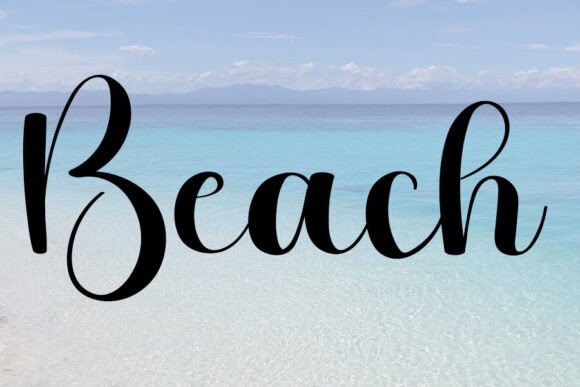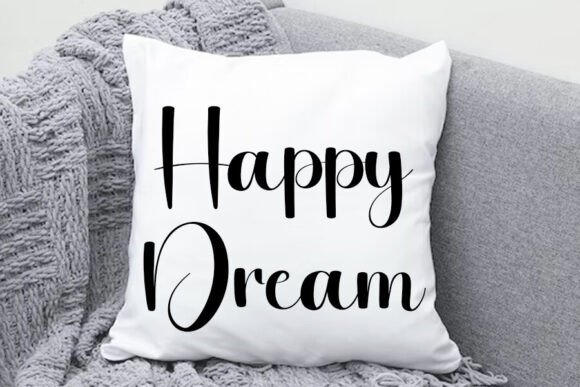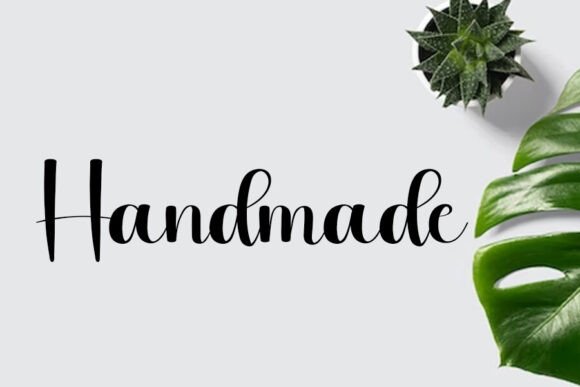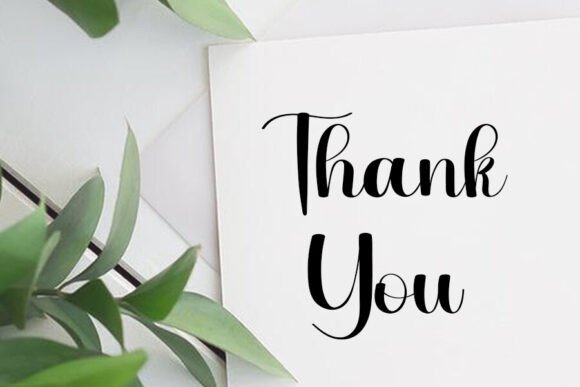
Introducing Diary Font: Elevate Your Design Standards
In the world of design, fonts play a crucial role in conveying messages, expressing emotions, and creating brand identities. Among the numerous fonts available, Diary Font stands out as a uniquely captivating and contemporary typeface that can elevate your design standards. In this article, we’ll explore the features, applications, and benefits of Diary Font, making it an essential tool for designers, entrepreneurs, and crafters.
What is Diary Font?
Diary Font is a modern, elegant, and versatile typeface designed to cater to a wide range of design applications. Its simplicity, combined with its distinctive flair, characterizes Diary Font, making it an excellent choice for various projects. Whether you’re a designer, entrepreneur, or crafter, Diary Font can help you create stunning visual content that captures attention and communicates your message effectively.
Applications of Diary Font
Diary Font’s versatility makes it suitable for numerous design applications, including:
- YouTube Banners: Create eye-catching banners that showcase your brand’s personality and style.
- Logo Mockups: Give your logo a professional touch with Diary Font’s elegant and modern aesthetic.
- Wedding Invitations: Add a romantic air to your wedding invitations and make them truly unforgettable.
- ID Cards: Convey professionalism and authority with Diary Font’s clean and crisp design.
- Flyers: Inject creativity and energy into your flyers, making them stand out from the crowd.
- Craft Projects: Add a touch of elegance and sophistication to your craft projects, such as handmade cards, scrapbooking, and more.
Benefits of Using Diary Font
Diary Font offers several benefits that make it an attractive choice for designers and crafters:
- Unique and Captivating: Diary Font’s distinctive style sets it apart from other fonts, making your designs more engaging and memorable.
- Contemporary and Modern: Stay ahead of the design curve with Diary Font’s modern and fresh aesthetic.
- Versatile: Use Diary Font across various design applications, from digital to print.
- Elegant and Sophisticated: Add a touch of elegance and sophistication to your designs, perfect for high-end brands and luxury projects.
- Easy to Read: Diary Font’s clean design ensures excellent readability, making it suitable for body text and headings.
Why Choose Diary Font?
In today’s competitive design landscape, standing out from the crowd is crucial. Diary Font can help you:
- Champion Your Brand: Elevate your brand’s visual identity with Diary Font’s unique and captivating style.
- Enhance Your Designs: Add a touch of professionalism, elegance, and sophistication to your designs.
- Stay Ahead of the Curve: Keep up with the latest design trends and innovations with Diary Font’s modern aesthetic.
Diary Font is more than just a font; it’s a design tool that can elevate your design standards and help you create stunning visual content. Its versatility, elegance, and modern aesthetic make it an essential font for designers, entrepreneurs, and crafters. Whether you’re looking to create eye-catching YouTube banners, professional ID cards, or romantic wedding invitations, Diary Font is the perfect choice. Upgrade your design game with Diary Font and experience the power of typography.